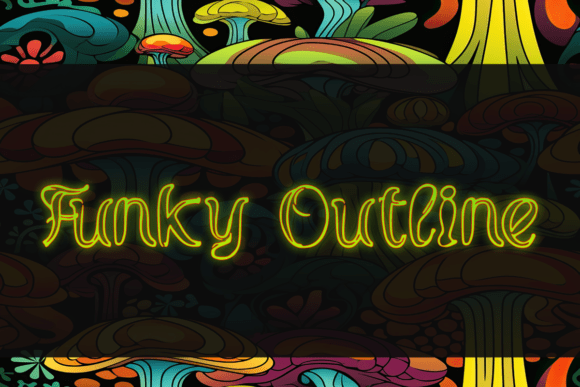
Enter the Funky Outline Font – a game-changing typography solution that adds a dash of style and boldness to your branding, logos, and headings. This versatile font is perfect for advertising initiatives, where making a lasting impression is key. With its unique twist, the Funky Outline Font turns ordinary text into engaging and vibrant visual communication. For designers, this font is a valuable asset that combines creativity with readability, making it an art form that’s both functional and beautiful.
Funky Outline Font Key Features
- Unique Characteristics: Funky Outline Font features a unique outline design with a funky, energetic feel, making it perfect for creating eye-catching headlines and titles.
Funky Outline Font Review
I’ve had the chance to work with the Funky Outline Font, and I must say it’s a unique addition to any design project. ✨ The font’s playful, hand-drawn feel makes it perfect for creating a fun and youthful vibe.
- The font’s versatility – it works well for both body text and headlines.
- The various styles and weights available, which allow for a lot of customization options.
- The fact that it’s easily readable, even at smaller font sizes.
However, there are some limitations:
- ⚠️ The font can look a bit childish if not used carefully – it’s not suitable for all types of projects.
- ⚠️ Some users may find the font too playful or distracting, which can affect readability.
- ⚠️ There’s a slight lack of sophistication, which may not be suitable for more professional or corporate projects.
Overall, I think the Funky Outline Font is a great addition to any designer’s toolkit, but it’s essential to use it thoughtfully and in the right context. With some careful consideration, it can add a lot of personality and fun to a project.
Funky Outline Font: A Practical Application Guide
Getting the Most Out of Funky Outline Font
To get the most out of Funky Outline Font, try experimenting with different font sizes, colors, and combinations with other fonts. You can also use it to create bold headings or to add a touch of personality to your designs.
Funky Outline Font is commonly used for:
- Creating eye-catching headings and titles.
- Adding a touch of personality to branding and marketing materials.
- Designing posters and flyers.
- Creating social media graphics and ads.
Alternatives to Funky Outline Font
Great Vibes is a beautiful, handwritten script font that can be used for a variety of design projects, including invitations, posters, and social media graphics. It’s perfect for creating a fun and playful atmosphere.
Compared to Funky Outline Font, Great Vibes has a more elegant and refined look, making it suitable for high-end designs. While Funky Outline Font is more cartoonish, Great Vibes is more sophisticated.
2. Dancing Script
Dancing Script is a lively, cursive font that’s ideal for projects that require a touch of elegance and sophistication. It’s perfect for creating a sense of movement and energy.
Compared to Funky Outline Font, Dancing Script is more fluid and dynamic, making it suitable for designs that need to convey a sense of motion. While Funky Outline Font is more playful, Dancing Script is more refined.